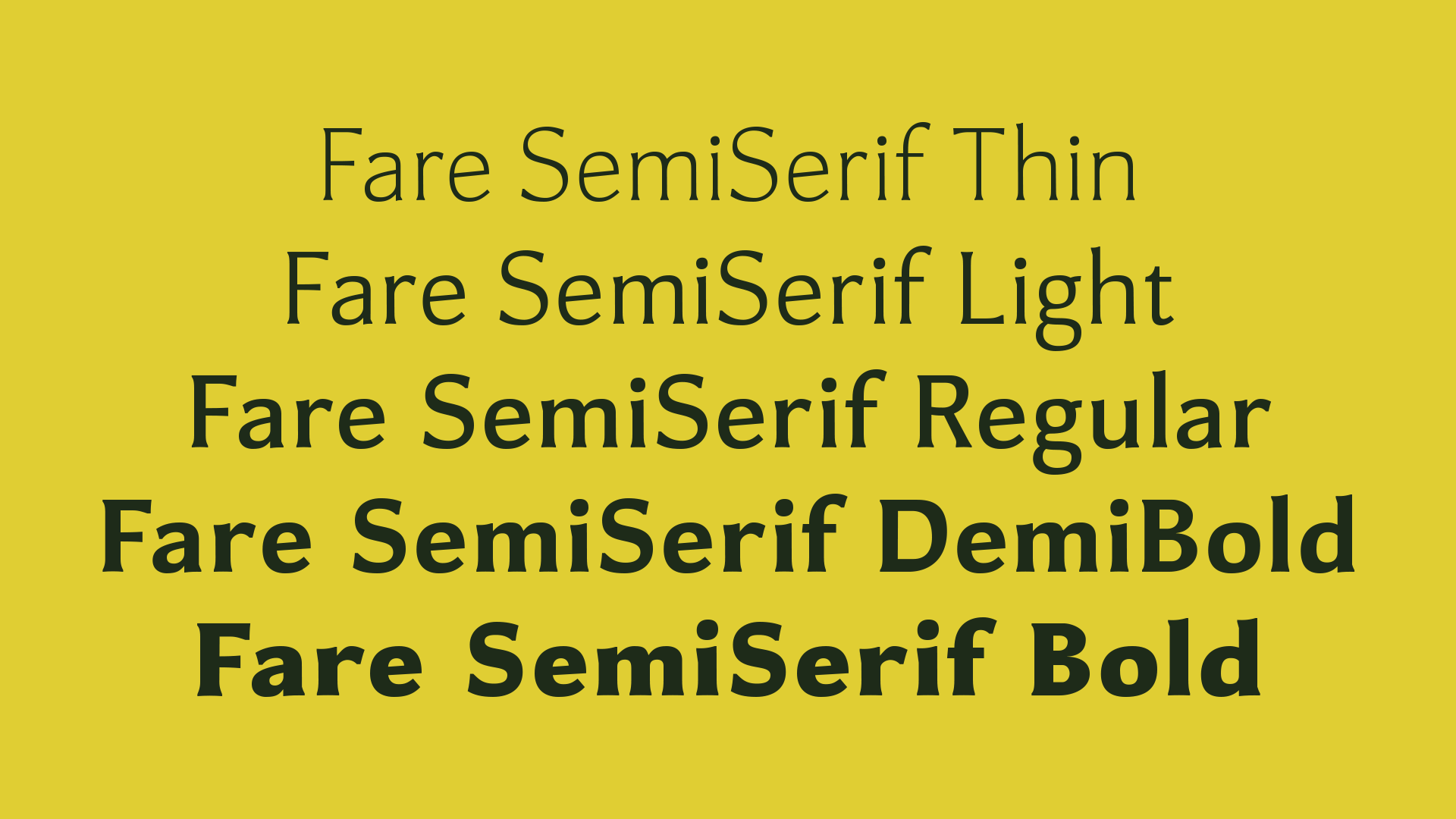
Fare
The circumstances of my typeface Fare and how it came to be are very special to my story. Being of a Pacific Islander background, studying in France, as well as having worked in a studio specializing in environmental graphic design and exhibitions, I felt that creating a typeface for a cultural institution in French Polynesia would be a perfect intersection of my interests. Therefore, designing a typeface for the National Museum of French Polynesia felt very fitting. I named the typeface "Fare," which means "home" in Tahitian — the concept of home was very crucial to the parts of this typeface coming together.
Initially, my research focused on hand-painted signs across the island. However, the lack of direct access to the city made it difficult, so I shifted my focus to key cultural monuments and architecture. During a critique, it was suggested that I broaden my research to include not only buildings but also artifacts such as tools and carvings, as well as locally produced art like textiles and tattoos. After expanding my research, I created abstract drawings to better understand where I could find letterforms and counter forms within these objects.
During my explorations, I encountered a dilemma — is it appropriate to appropriate traditional artifacts for the sake of a Latin-based one? A long weekend of thinking and researching and discussing led me back to focusing solely on the architecture. To me this removed the need to do years worth of ethnographical research to support my design decisions — years I would gladly partake in, but just didn't have. One of the main reasons I chose the Musée de Tahiti was that it had recently opened a new wing designed by an all-Parisian team from a Eurocentric firm and that the museum's rebranding appeared overly colonized and Eurocentric, which to me doesn't align with the museum and its artifacts. Any attempt at recognizing the culture through the type would be better than their current solution.
As the brief returned to the museum itself, I realized how this Parisian architecture firm approached the dichotomy of the colonized and the colonizer. The all-mirrored facade symbolized their presence, acknowledging that they were invited to be there, but they didn't want to disrupt the beauty of the islands and the existing museum. The stabilized wooden forms lining the outside offered an inward perspective, suggesting a desire to be recognized even though they wanted to remain invisible. From this, I found my inspiration to reduce the typeface to an extension of the museum rather than representing the entirety of French Polynesia, which would require the efforts of a team of ethnographers and typographers over a longer timeframe.
Thus, the prompt became creating something invisible, seemingly mundane at first glance but with enough visual interest to draw people in. I aimed for a typeface that felt natural yet modern, playful yet sophisticated, and most importantly, reflected the duality that the museum embodies in both its architecture and its history.
The result is a light to regular text face intended for print and signage, with language support for French, English, Tahitian, and other Oceanic languages. The proportions mostly follow the Roman style but are slightly squat to represent the low, wide architecture of the building. The serifs are slightly chunkier than usual, drawing inspiration from the sturdy design of traditional museums. Additionally, the serifs are cupped at the ends to reference the wood adornments found on the exterior of the new wing and to provide a more rugged, human feel to a clean-cut typeface. Diagonal cuts are also incorporated to echo the wood carvings and sharpeners found inside the museum.
During the process, I realized the need for a bold-variant. As we explored further, we discovered that the more weight we added, the more the typeface's characteristics emerged. Consequently, we developed a semibold and bold version, accompanied by an italic style for occasions such as translations or references. As suggested by others, we were encouraged to explore the design space once again, leading us to duplicate and reimagine the font as a sans-serif typeface while maintaining the same proportions and cupped stem endings.
At this point, I also wanted to challenge myself, as I had never created a typeface beyond a single variable axis. Thus, the Roman version of the typeface became variable not only in weight but also in transitioning from a serif to a semi serif to a sans. The initial shape of the serif worked well in transforming the font, and we pursued and actualized this concept.
Fare represents a lifetime of understanding identity, boiled down into a six-week intensive and a typeface family with 20 different fonts. In the future, I would love to revisit this topic and truly understand what it takes to create a typeface that represents a truly diverse and complex history and culture.